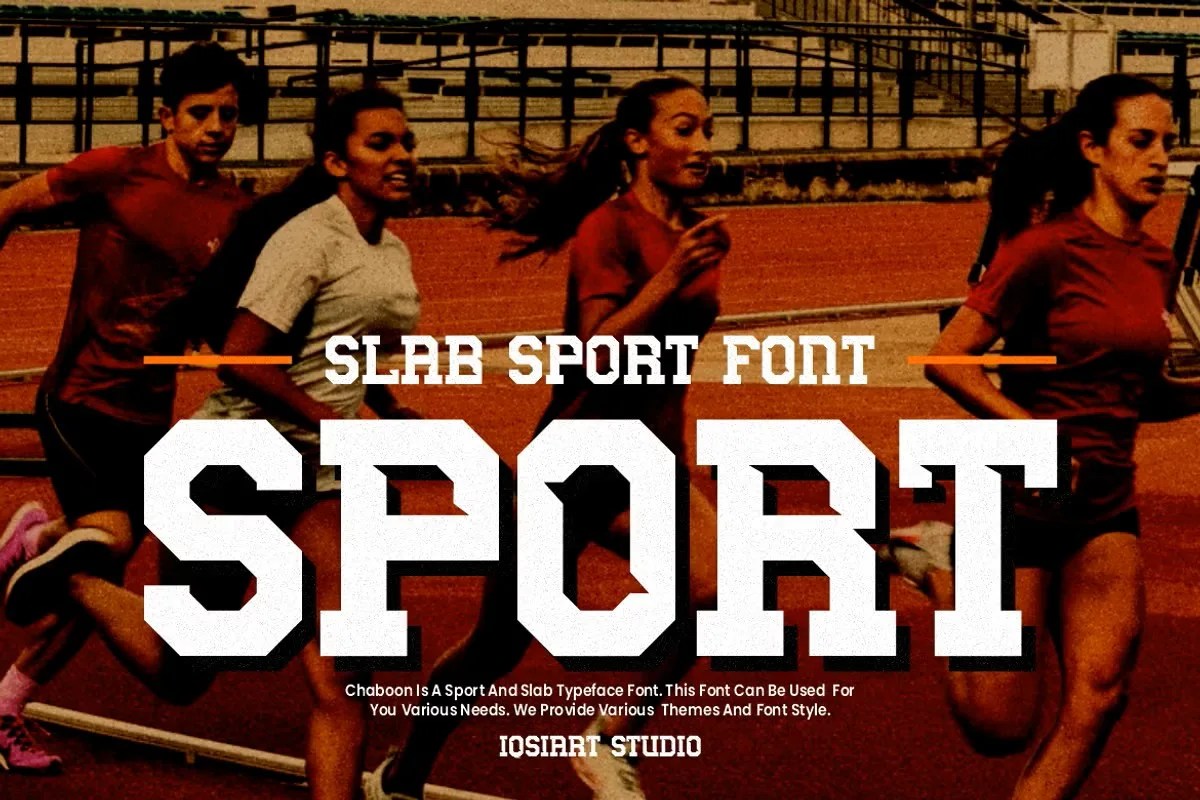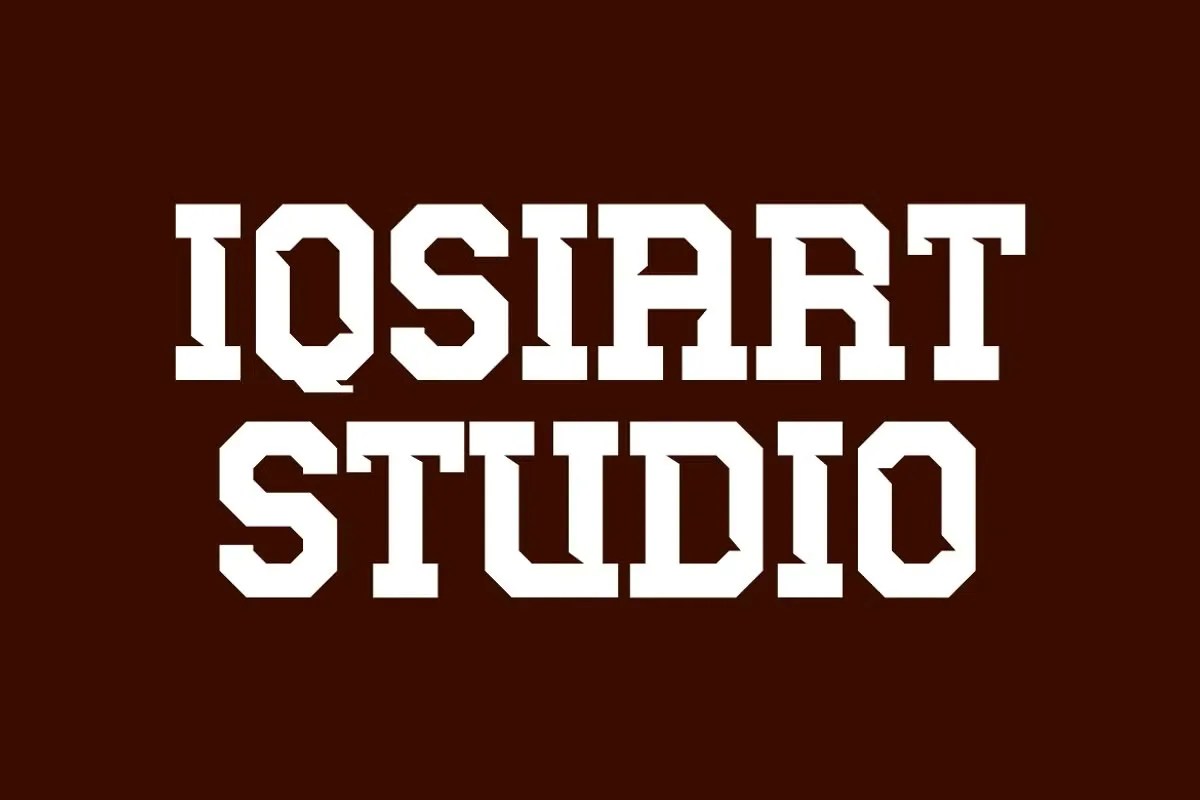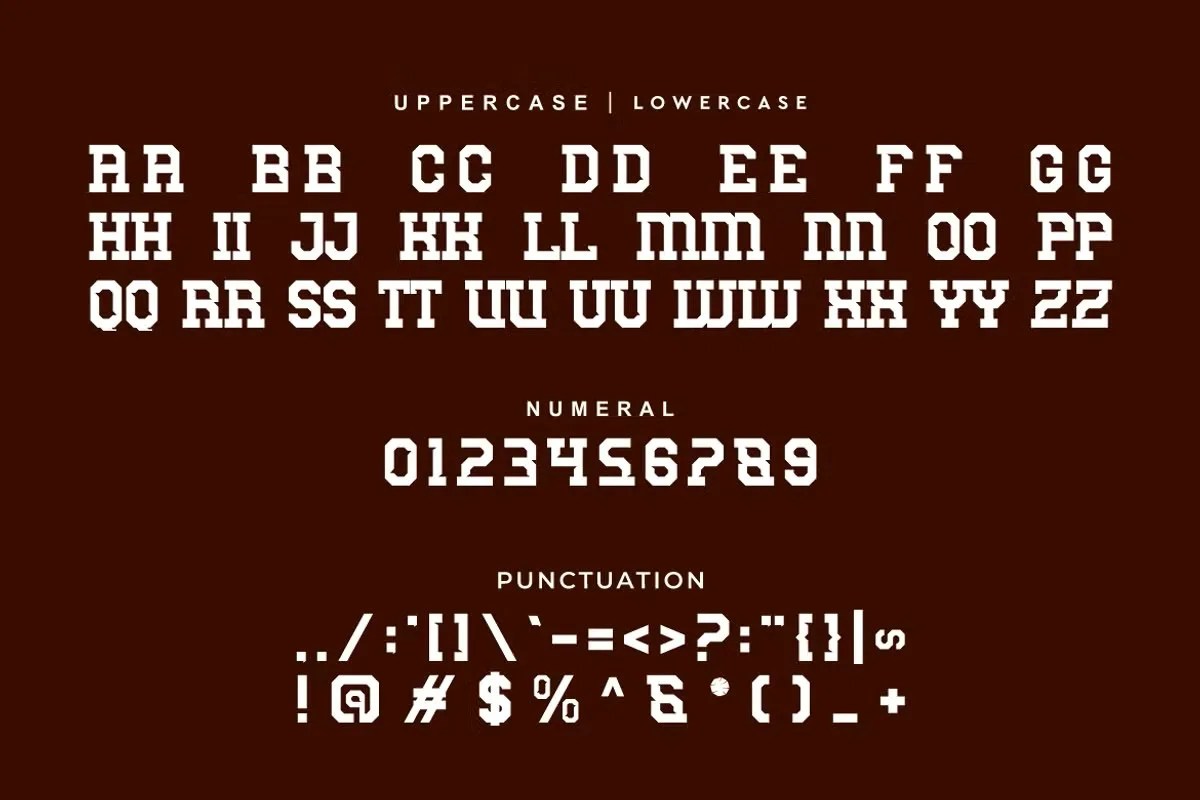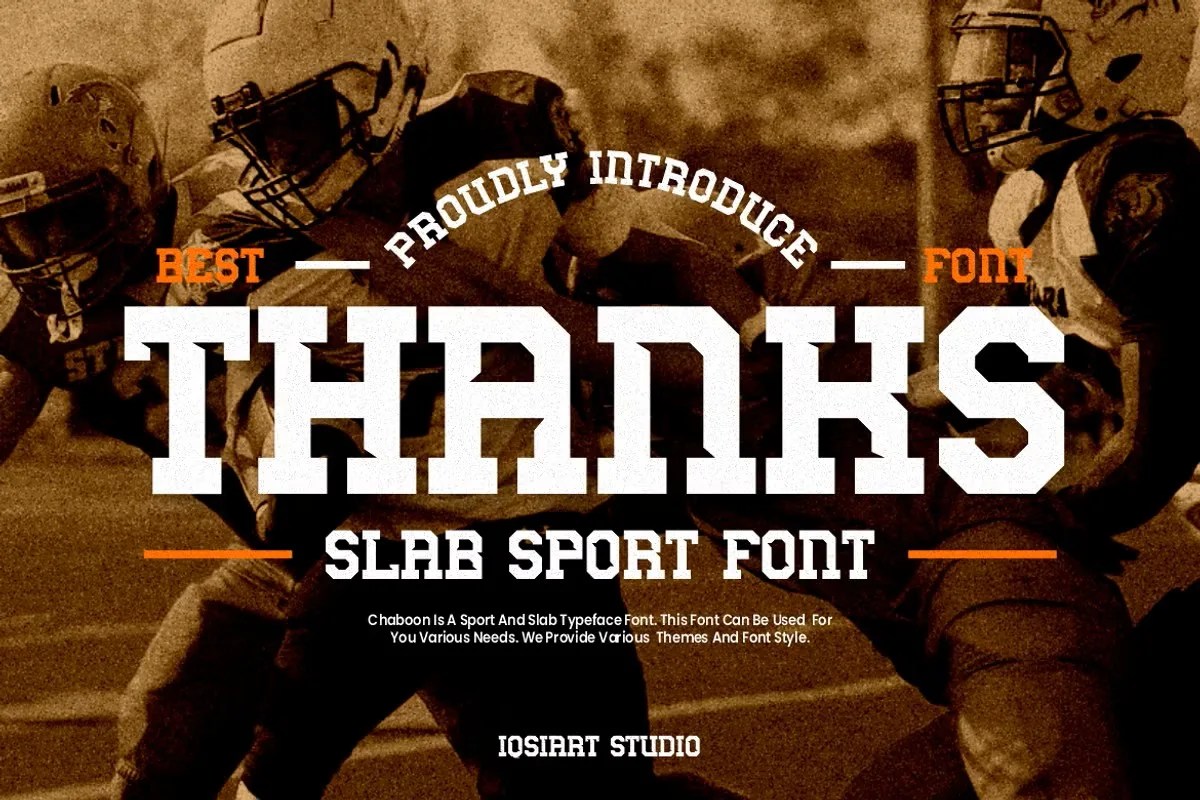
Chaboon by Iqsiart Studio. This is a delightfully playful display font that brims with a bubbly and friendly personality. The font’s soft, rounded letterforms create an immediate sense of joy and whimsy. Chaboon is perfect for any design that needs to feel lighthearted, happy, and approachable. It brings a cheerful energy that can make any text feel more engaging and fun.
This font is a fantastic tool for any project focused on fun. Specifically, it is a wonderful choice for children’s books and branding for kids’ products. It instantly creates a friendly and engaging atmosphere. Furthermore, this playful display font is perfect for creating party invitations, festive banners, and cheerful greeting cards. Use it for social media graphics or video titles that need to radiate positivity and capture a happy, celebratory mood.
• Fun and playful display style
• Features soft, rounded, bubbly letterforms
• Ideal for kids’ branding, invitations, and posters
• Adds a joyful and friendly feel
Chaboon